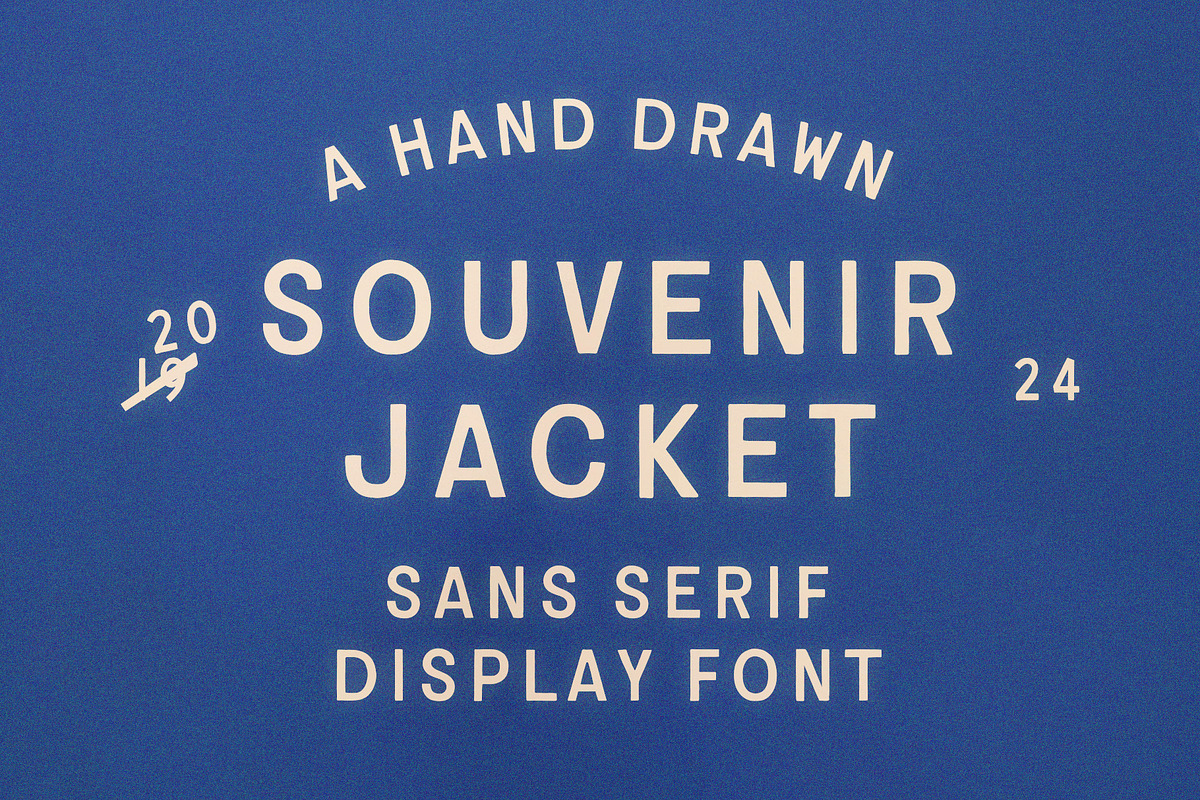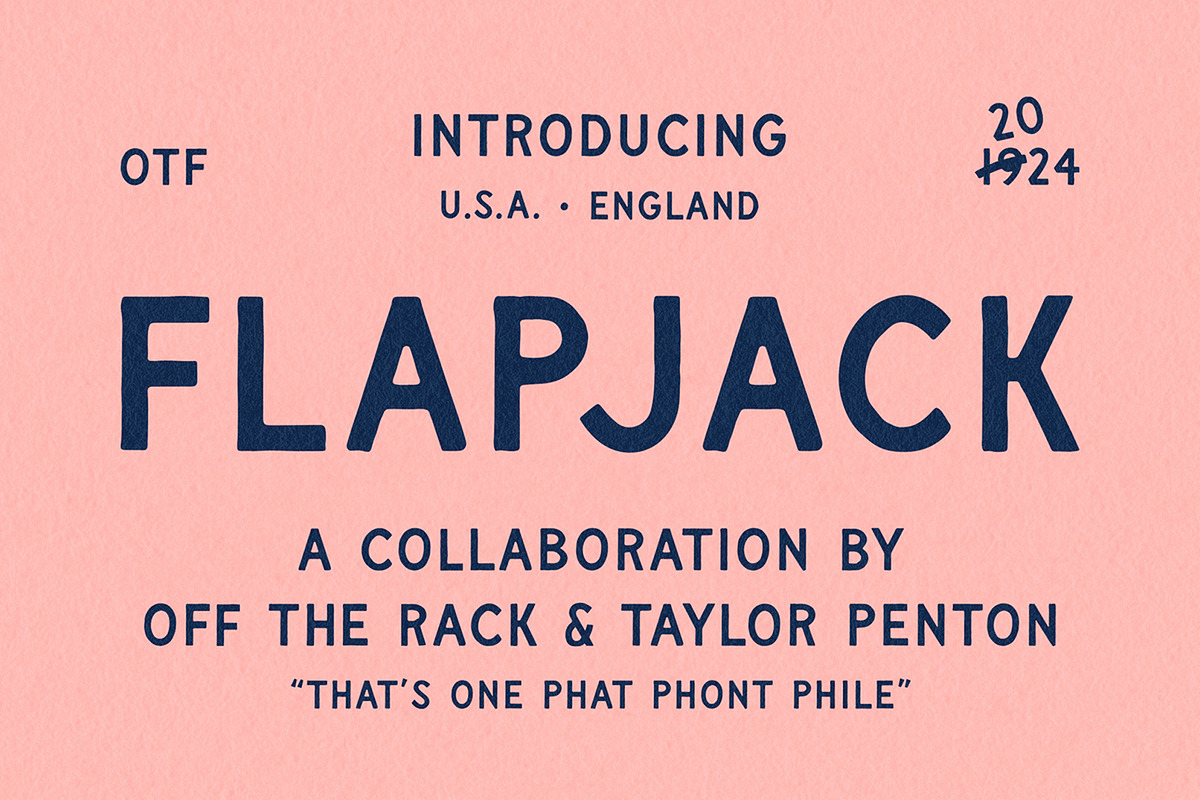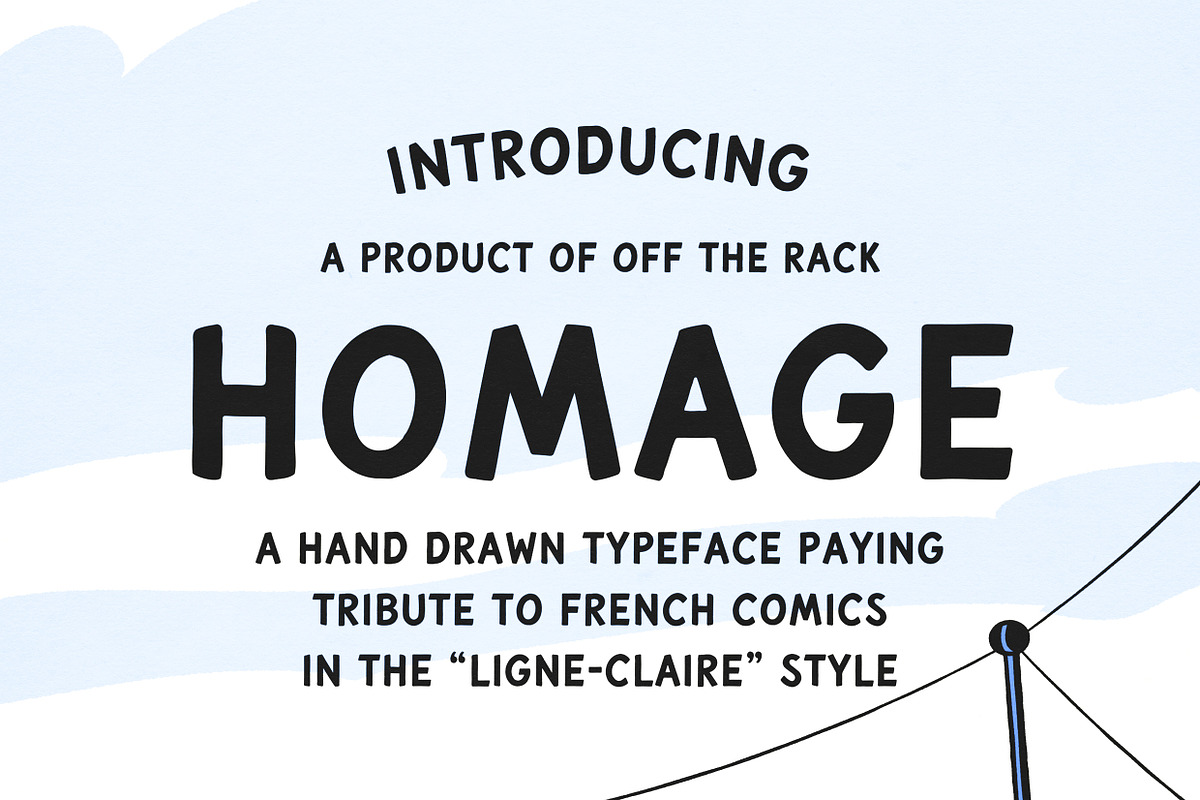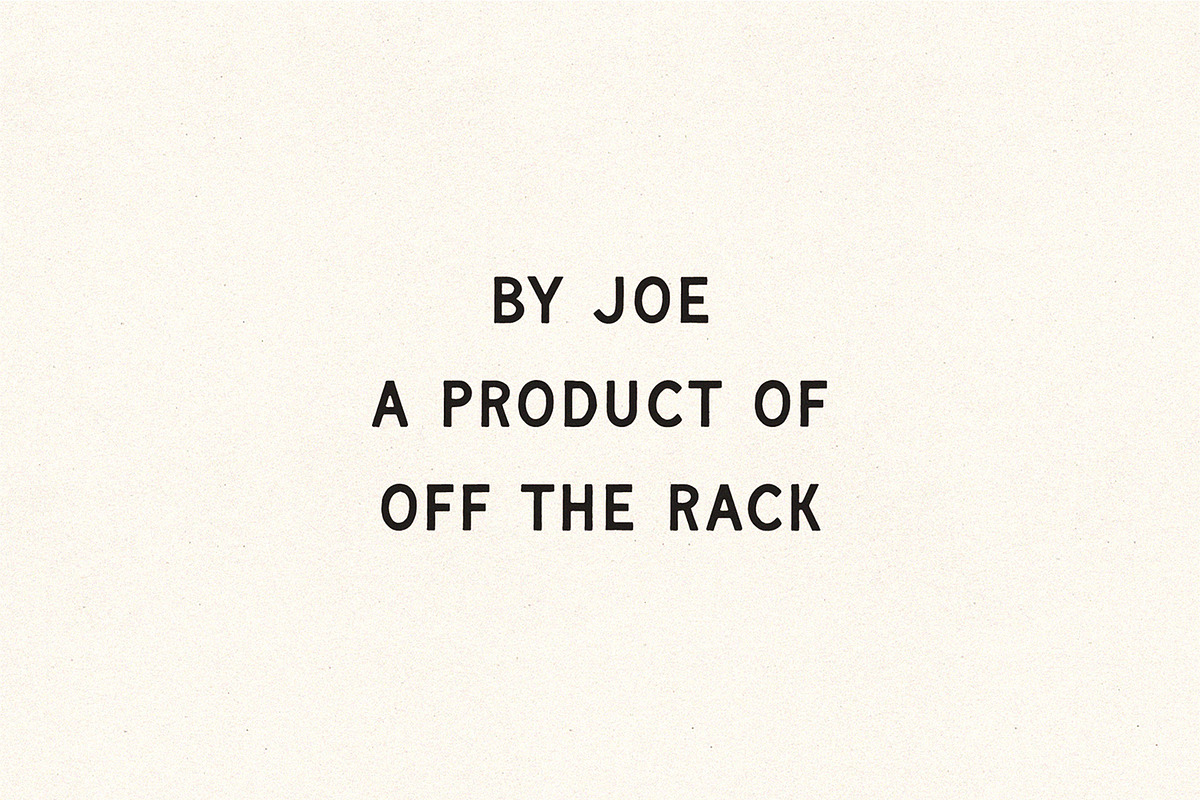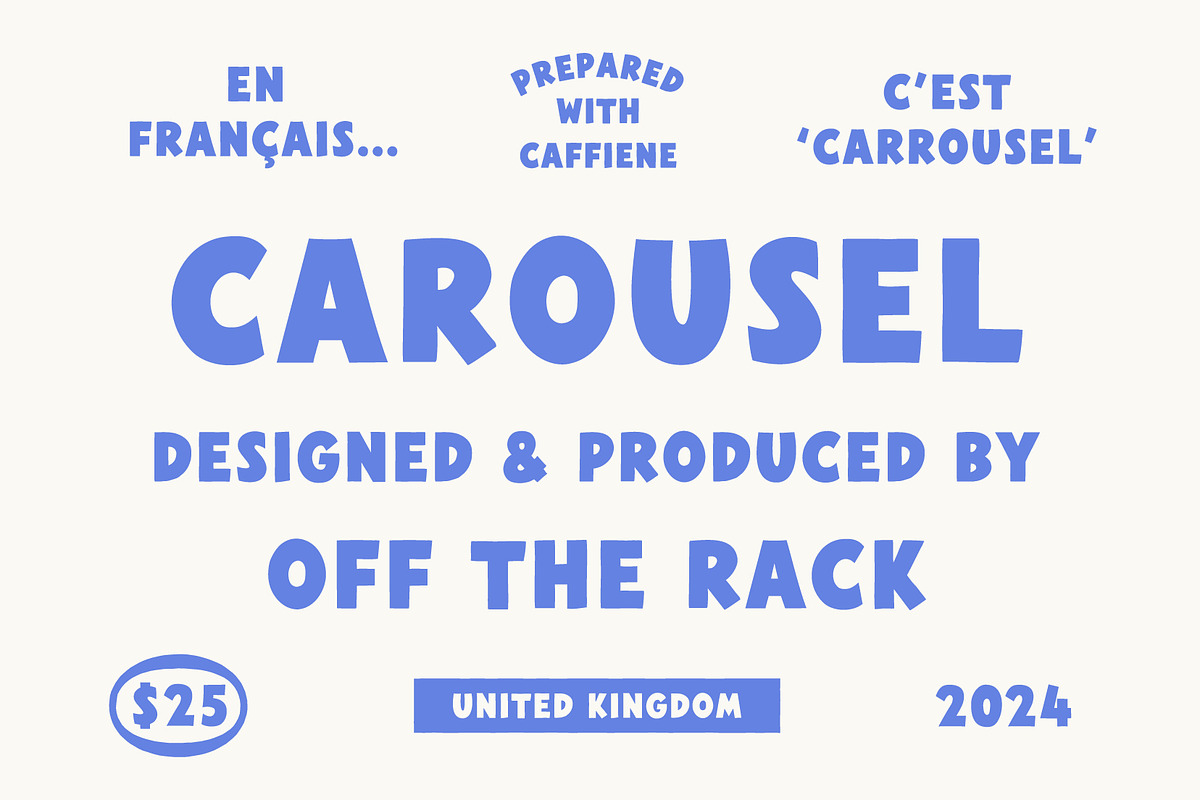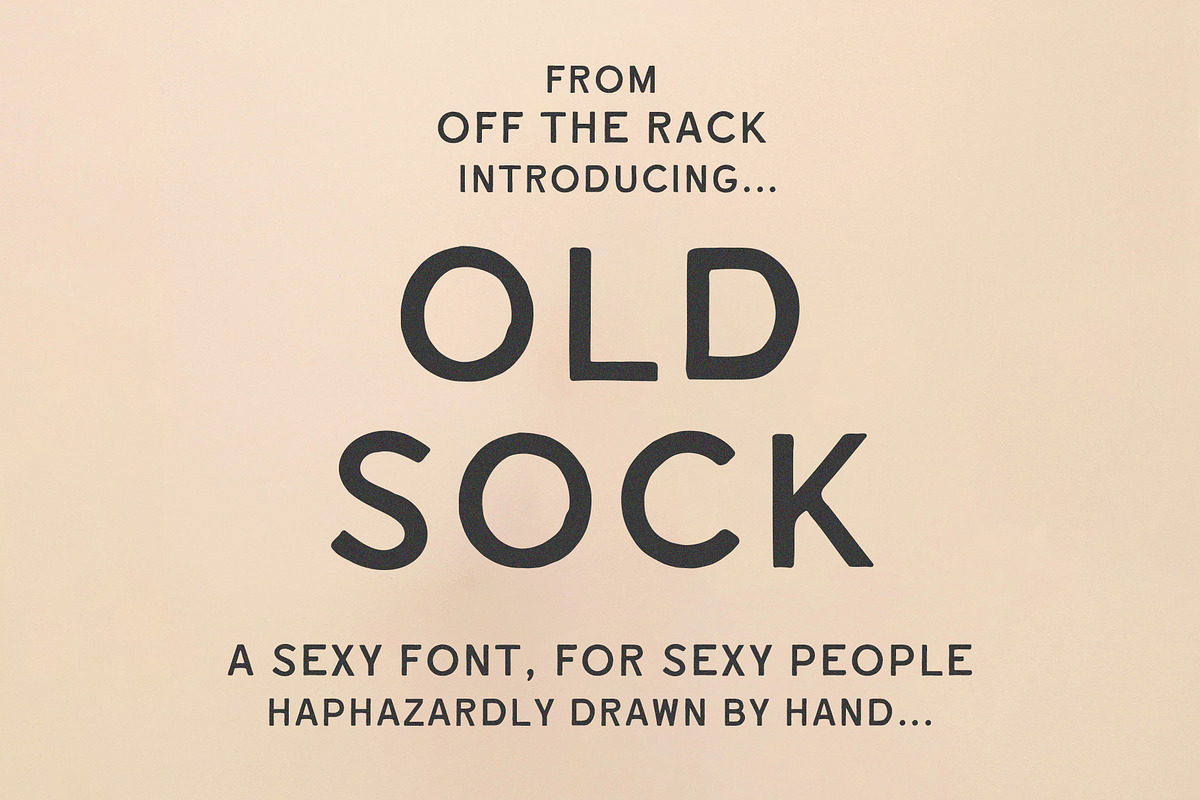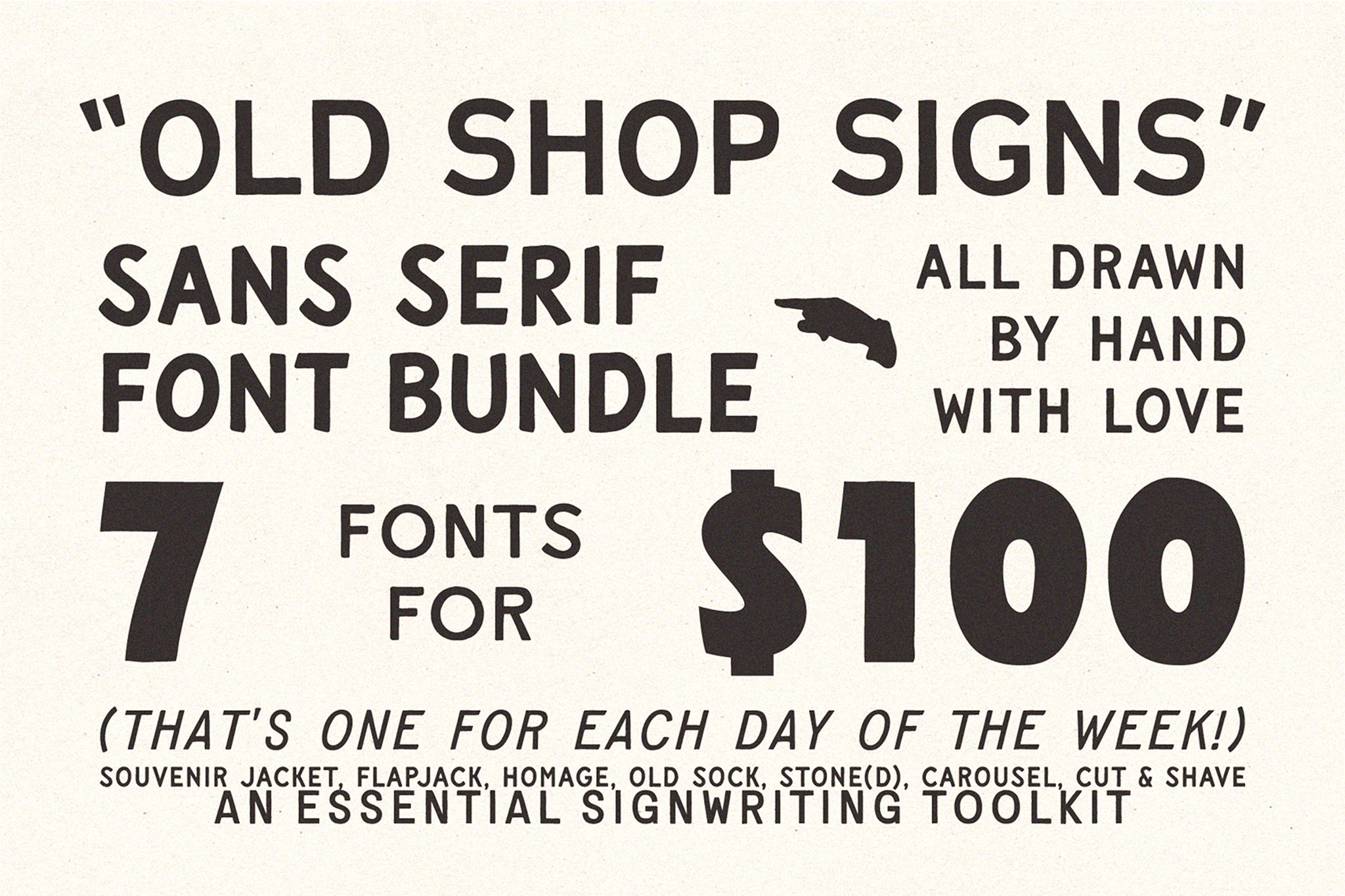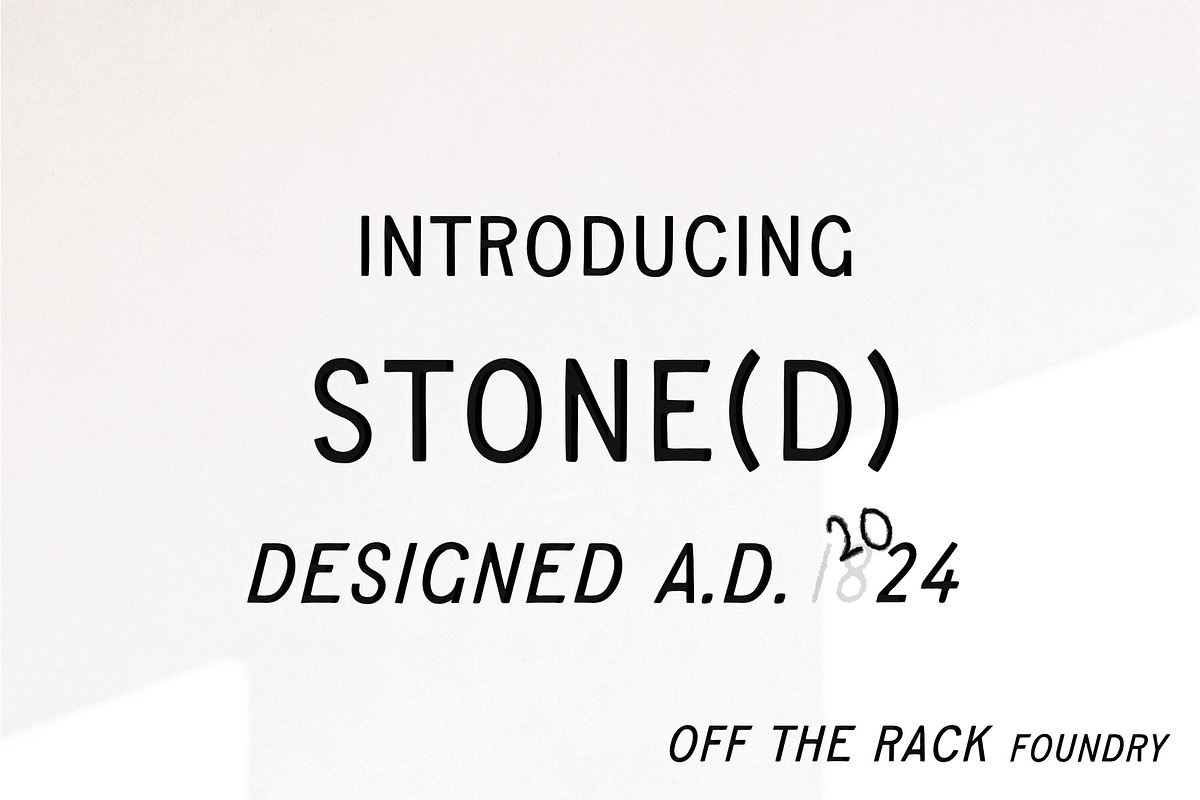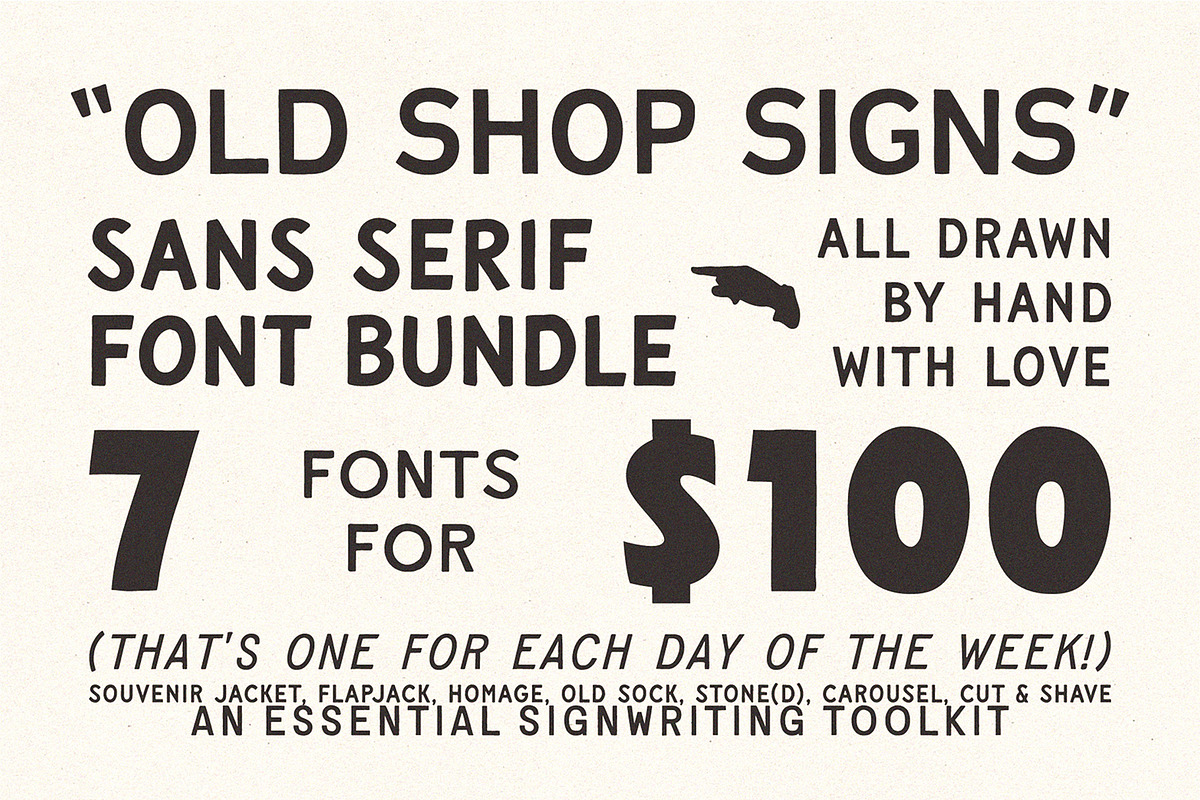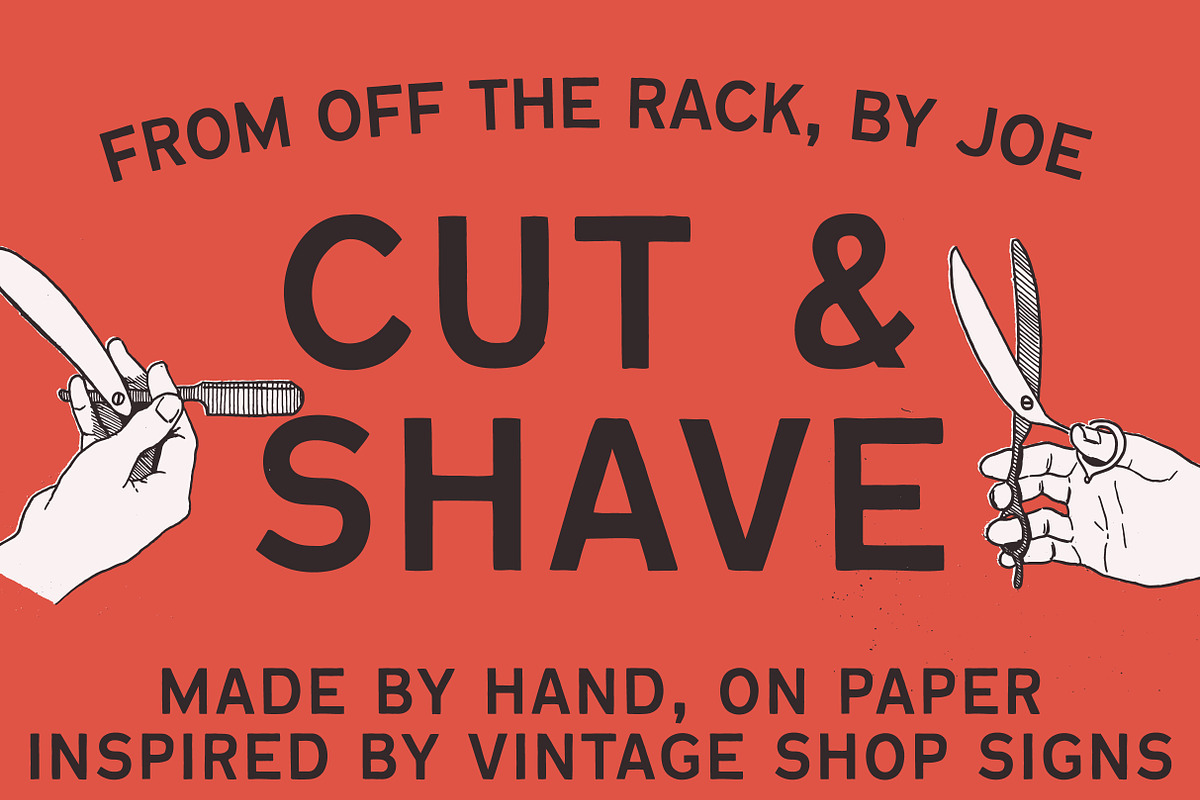
Bundle | Hand Drawn Sans Serif Fonts
Mix and match to effortlessly create vintage-inspired designs. Each of the fonts in this collection is drawn 100% by hand, inspired by classic signwriting, in order to capture that delightfully wonky handmade aesthetic.